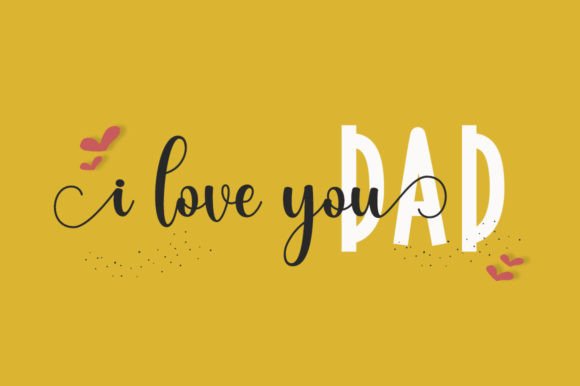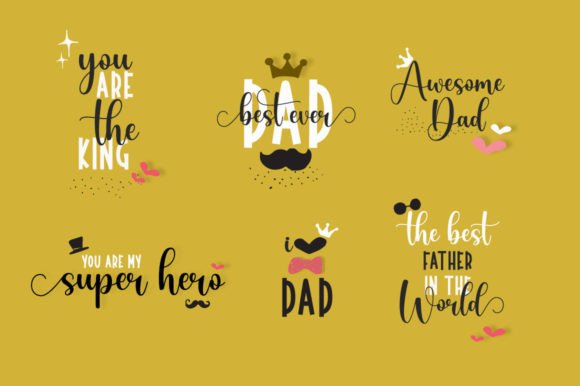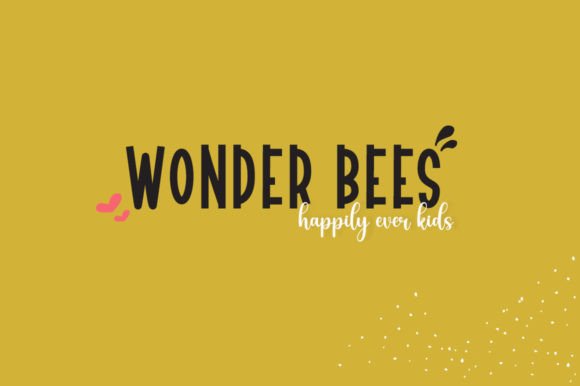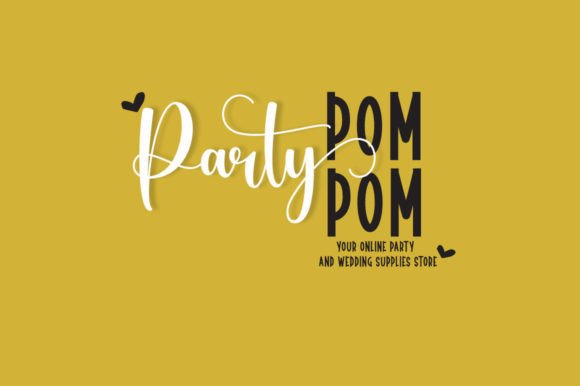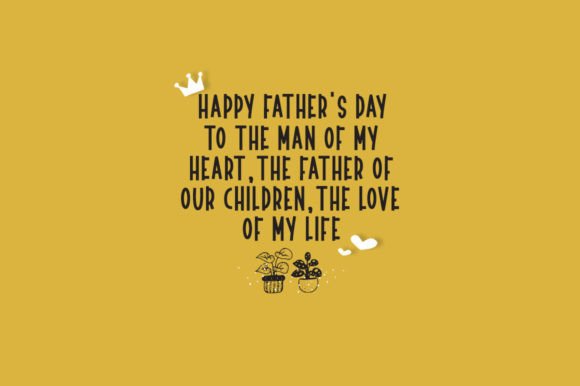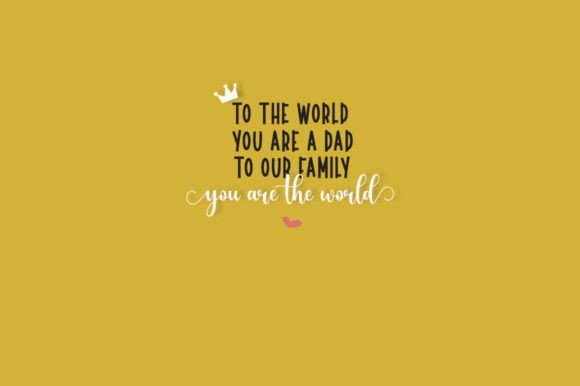
The Perfect Blend of Elegance and Versatility: Introducing Fathers Font
Have you ever been stuck on a design project, searching for that one element that will elevate it from good to great? That’s exactly how I felt when I stumbled upon Fathers Font. As a designer, I’m always on the lookout for fonts that can add a touch of luxury and sophistication to my work.
Fathers Font is a stunning duo font that seamlessly combines the elegance of script and the versatility of sans serif. With its PUA encoding, accessing the amazing glyphs and ligatures is a breeze, making it a game-changer for designers. Whether you’re working on a high-end branding project or a beautiful wedding invitation, Fathers Font is sure to add that extra oomph you’re looking for.
What sets Fathers Font apart from other fonts is its ability to add a level of sophistication and elegance to any design project. Its versatility makes it perfect for a wide range of applications, from logos to typography, making it a valuable addition to any designer’s toolkit.
Fathers Font Key Features
- Font Family: A unique and customizable font family, available in various weights and styles.
- Language Support: Supports over 100 languages, making it a versatile option for global use.
- Unique Characteristics: Features a distinctive, modern design with a strong emphasis on legibility and readability.
Fathers Font Review
As a designer, I’ve had the chance to work with a variety of fonts, and I have to say, Fathers Font is an interesting addition to the mix. Here’s my honest review:
- Unique Character: Fathers Font has a distinct, handwritten feel that can add a personal touch to designs.
- Flexibility: It can be used in a range of settings, from formal to informal, and even as a bold statement font.
- Legibility: Despite its unique style, the font is still easy to read, making it a great choice for body text or headings.
- Consistency: The font’s handwritten feel can sometimes make it difficult to achieve consistent line spacing or letter height.
- Limited Support: Some users may experience issues with font rendering or support in certain applications or devices.
Overall, Fathers Font is a solid addition to any designer’s toolkit. While it may have some limitations, its unique character and flexibility make it a great choice for designers looking to add a personal touch to their work. Just be aware of the potential issues and plan accordingly.
Tips for Getting the Most Out of Fathers Font
Use bold or italic styles to add emphasis to your text. Experiment with different font sizes and colors to create a visually appealing design. Consider using Fathers Font in combination with other fonts to create a unique and eye-catching look.
Fathers Font is suitable for a variety of applications, including:
- Personalized gift designs, such as photo frames or mugs
- Wedding invitations or announcements
- Business cards or marketing materials
- Family tree or genealogy projects
Alternatives to ‘Fathers Font’ for Designers
Great Vibes is a modern script font suitable for creating a friendly and approachable atmosphere. It is ideal for use in branding, signage, and marketing materials where a casual, yet professional tone is desired. Compared to Fathers Font, Great Vibes has a more playful and elegant feel, making it perfect for designs that require a touch of sophistication.
Pacifico is a beautiful script font that evokes a sense of relaxation and tranquility. It is suitable for use in designs that require a calm and soothing atmosphere, such as spa branding, wellness websites, or travel brochures. Compared to Fathers Font, Pacifico has a more refined and elegant feel, making it perfect for designs that require a sense of luxury.
Alex Brush is a elegant script font that is suitable for use in designs that require a touch of sophistication and elegance. It is ideal for use in branding, packaging, and marketing materials where a professional and refined tone is desired. Compared to Fathers Font, Alex Brush has a more refined and polished feel, making it perfect for designs that require a sense of luxury and sophistication.